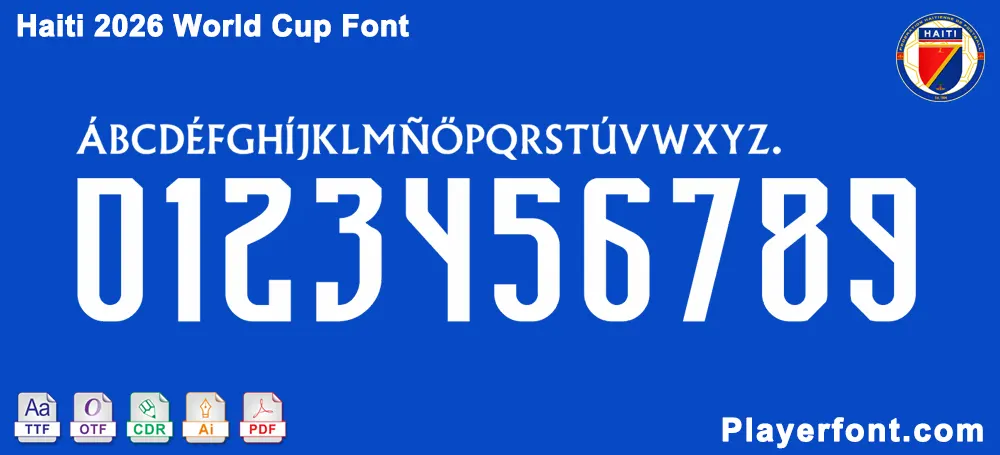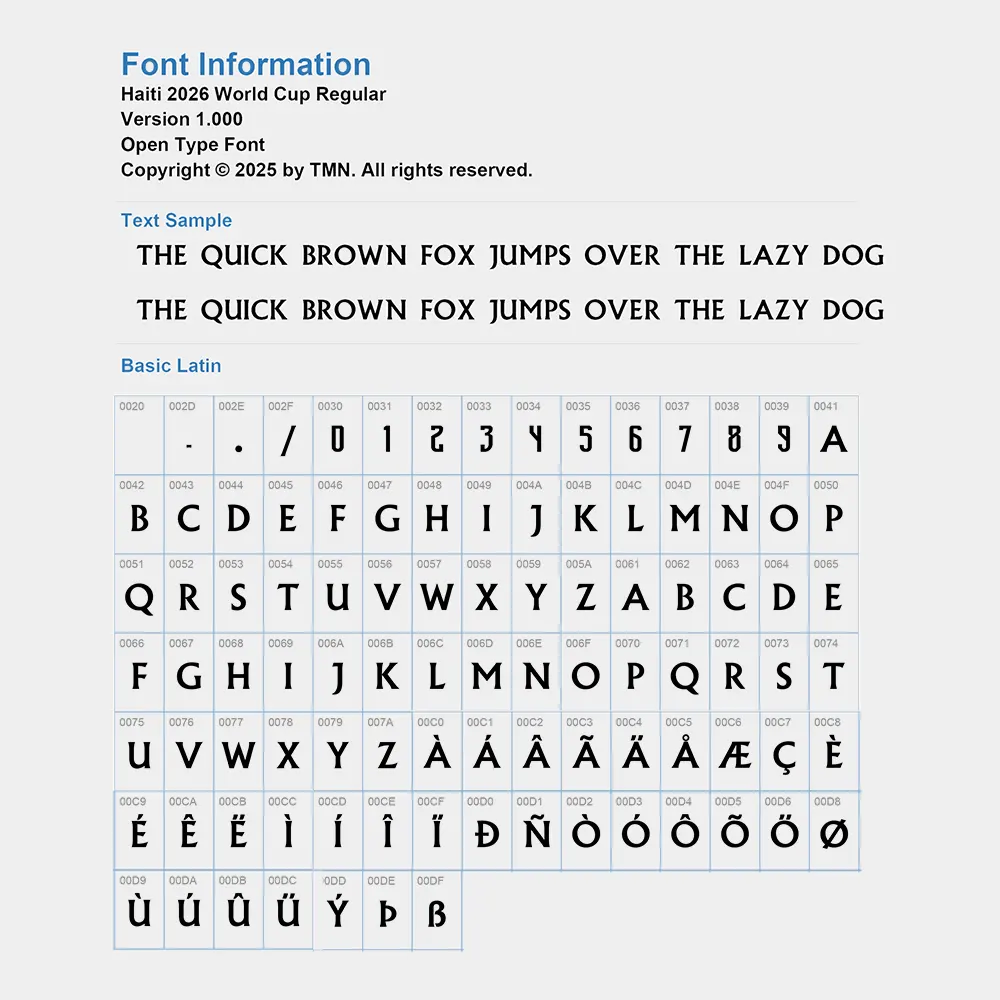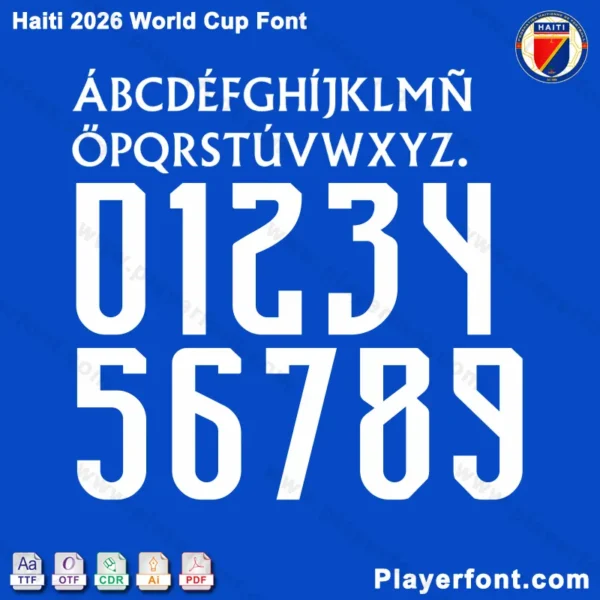
Whether you are a graphic designer, a sports apparel manufacturer, or a die-hard fan creating custom fan gear, this font kit provides everything you need for high-quality printing and digital mockups. The font features a sharp, aggressive aesthetic with unique angular cuts, capturing the energy of Haitian football.
Full Character Set: Includes all uppercase letters (A-Z), numbers (0-9), and essential punctuation/accents as shown in the .
Optimized for Jerseys: Specifically designed for legibility on the pitch.